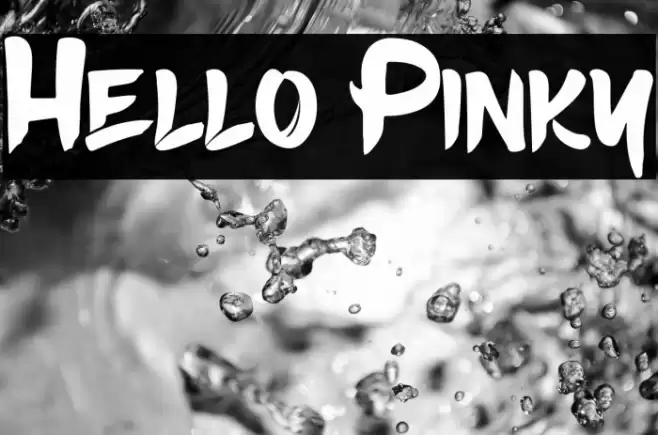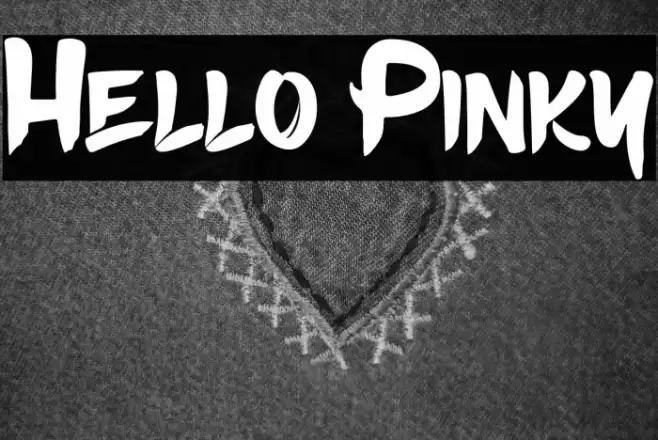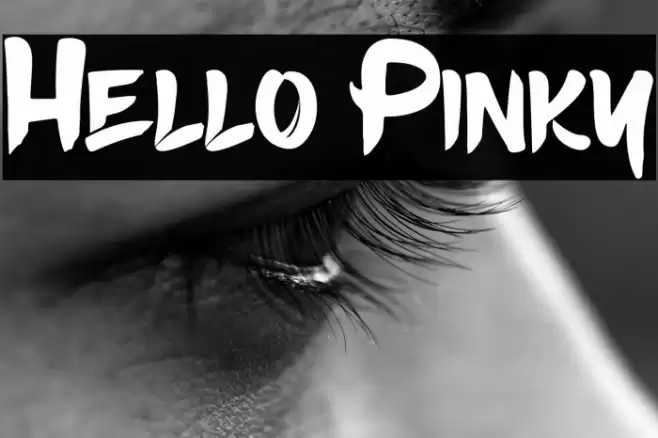
Hello Pinky Font
Hello Pinky Description
This font features a bold and energetic style, characterized by thick, brush-like strokes that give it a dynamic and lively appearance. The letters are slightly slanted, adding a sense of movement and fluidity. The uppercase and lowercase characters maintain a consistent weight, creating a cohesive look. The numbers and special characters follow the same bold and expressive design, making them stand out. This font is ideal for projects that require a playful and impactful visual presence, such as posters, headlines, and branding materials.
A bold, brush-style font with dynamic and lively strokes from Regular fonts.
- Font: Hello Pinky
- Proposed Projects: Ideal for posters, headlines, branding, and any project needing a playful and impactful look.